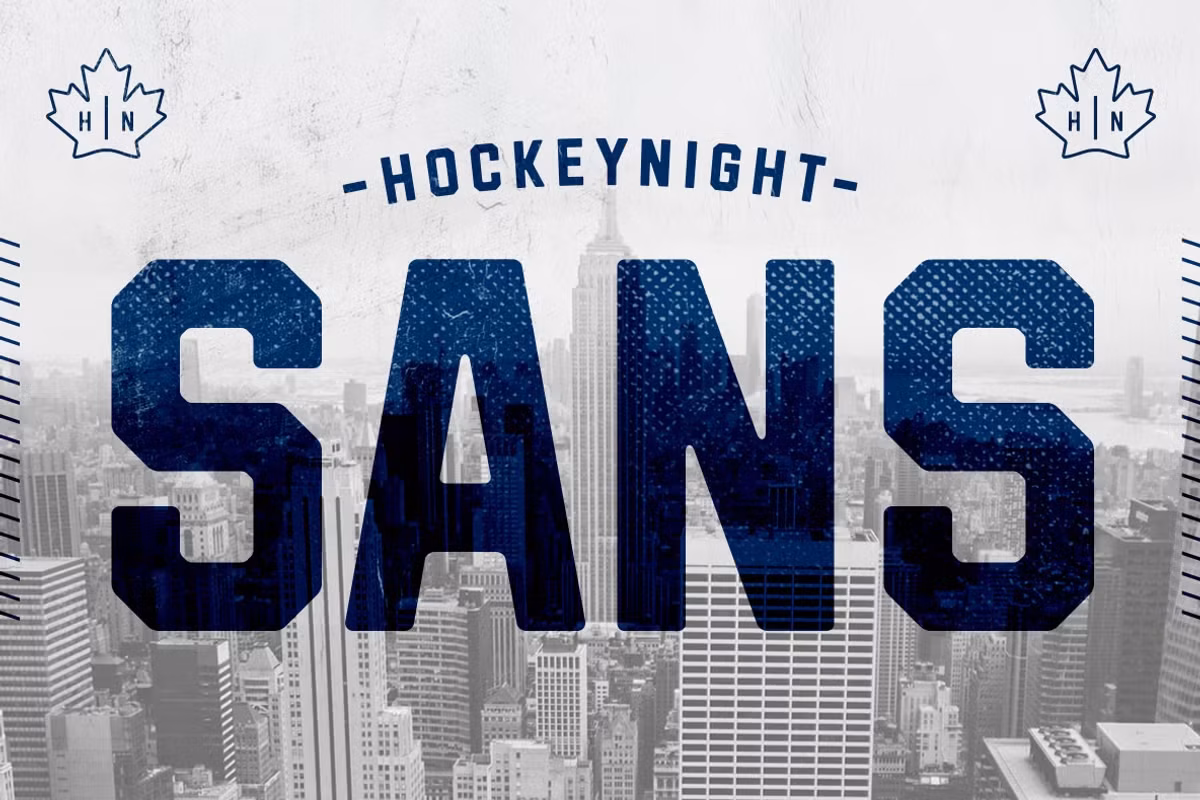
The Hockeynight Sans Font Free Download is a bold and sporty typeface designed to add a dynamic, modern edge to your designs. With its clean, strong lines and unique character, this font is perfect for creating logos, sports branding, team uniforms, posters, and more. The Hockeynight Sans Font is ideal for projects that require a bold, energetic look, making it perfect for sports events, athletic branding, and promotional materials. Its versatile design ensures legibility while maintaining a contemporary, sleek aesthetic. Please note, for commercial use, a license purchase is required. However, you can easily download the Hockeynight Sans Font Free Download for free for personal use and explore its creative potential. Download the Hockeynight Sans Font Free Download today and bring a bold, athletic vibe to your designs.